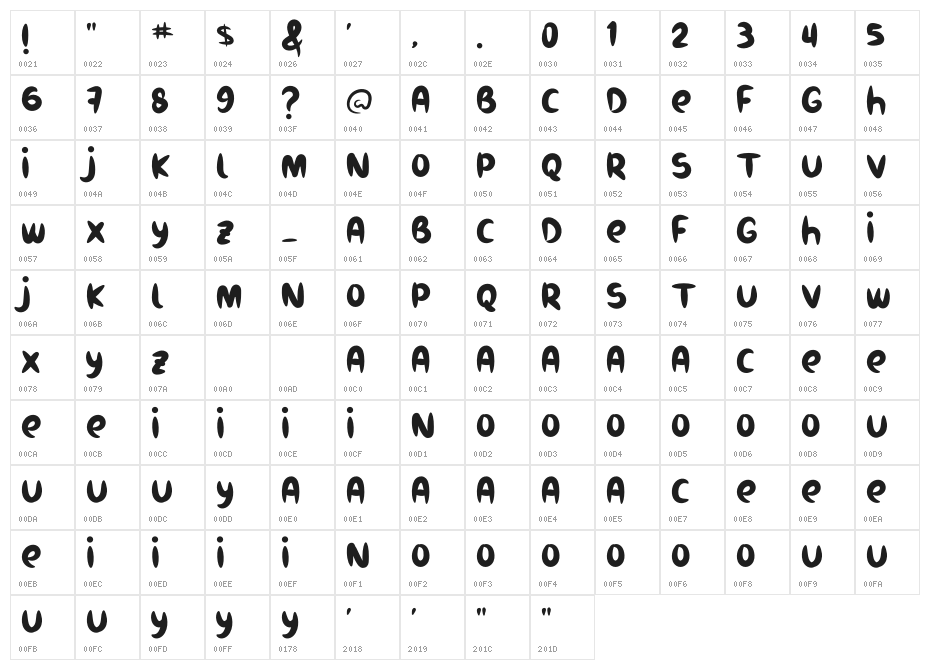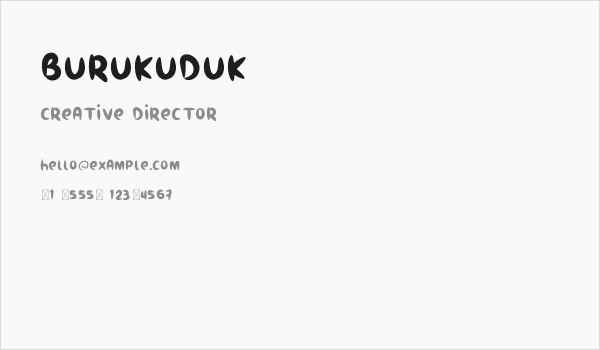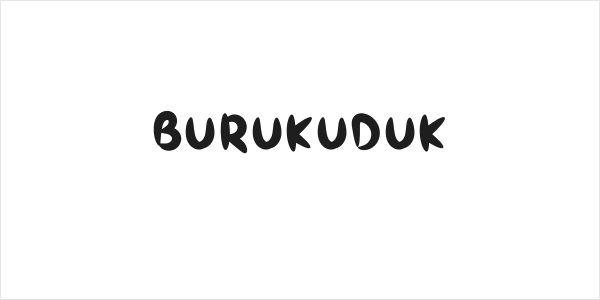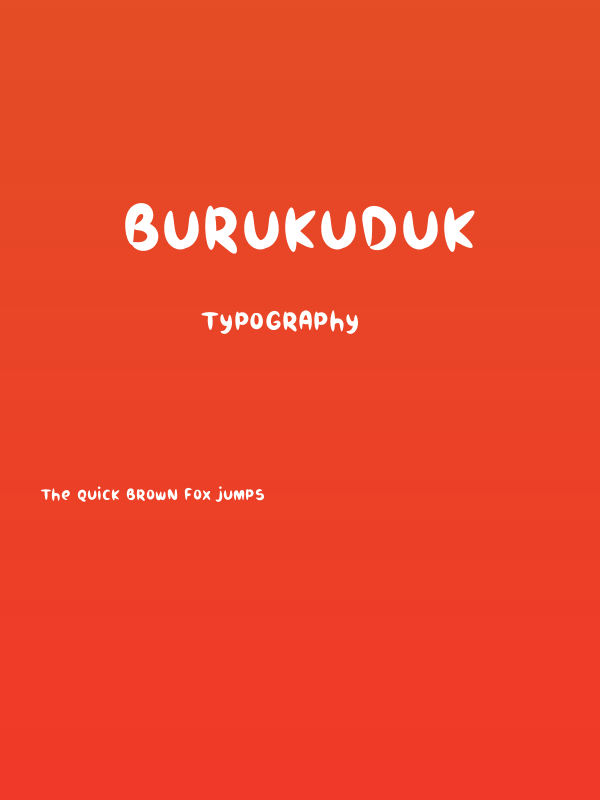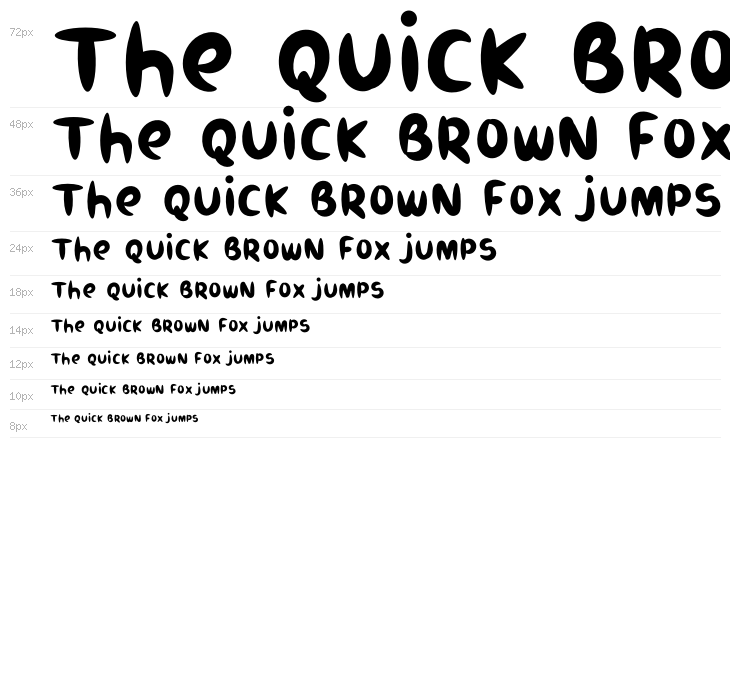
Burukuduk Font
Burukuduk Description
This playful and bold font features rounded, bubbly characters that convey a sense of fun and whimsy. The letters are thick and have a consistent stroke width, giving them a strong presence on the page. The font includes both uppercase and lowercase letters, as well as numbers and a selection of special characters. Its rounded edges and smooth curves make it approachable and friendly, ideal for designs that aim to be inviting and engaging. The font's style is consistent throughout, maintaining a cohesive look across all characters. Its boldness ensures readability, even at smaller sizes, while the unique character shapes add a touch of personality.
| Proposed Projects | Ideal for children's books, playful branding, party invitations, and any project that requires a fun and approachable aesthetic. |